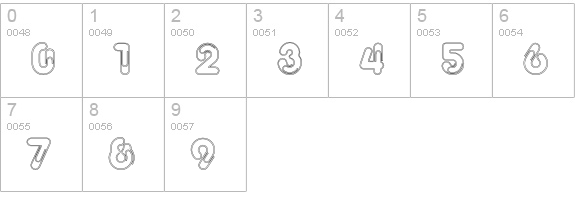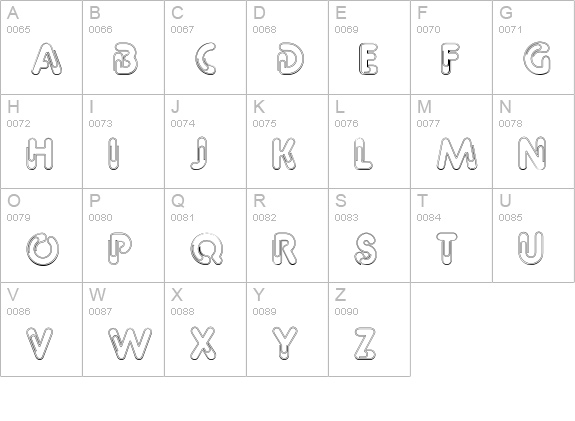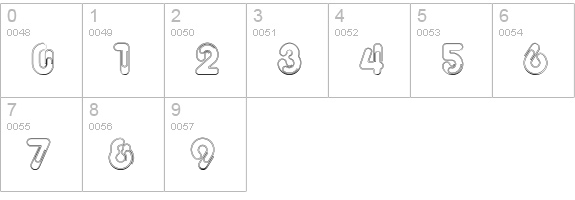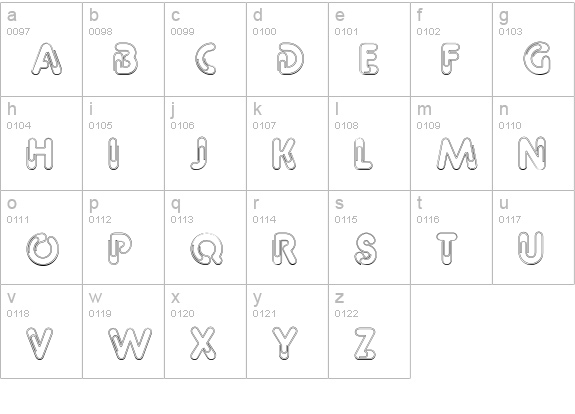
PaperClipOutline Font Details
Introducing PaperClipOutline, a captivating and versatile font that is sure to add a touch of creativity and elegance to any design project. With its unique and intricate outline style, this font effortlessly captures attention and stands out from the crowd. PaperClipOutline is not just visually appealing, but also incredibly functional. Its clean lines and balanced proportions make it highly readable, ensuring that your message gets across with clarity and impact. Whether you're designing a logo, creating a poster, or crafting a social media graphic, this font will elevate your work to the next level. What sets PaperClipOutline apart from other fonts is its ability to effortlessly blend into any design theme or style. From modern and minimalist to vintage and retro, this font adapts seamlessly to suit your creative vision. Its versatility makes it a go-to choice for designers of all levels. The best part? PaperClipOutline is available for free download exclusively at FontsMarket.com. You can easily access this remarkable font and enhance your design projects without worrying about breaking the bank. Take advantage of this amazing opportunity and unleash your creativity without any constraints. With PaperClipOutline, you can create stunning typography that leaves a lasting impression. So why wait? Download this incredible font today and let your imagination run wild.